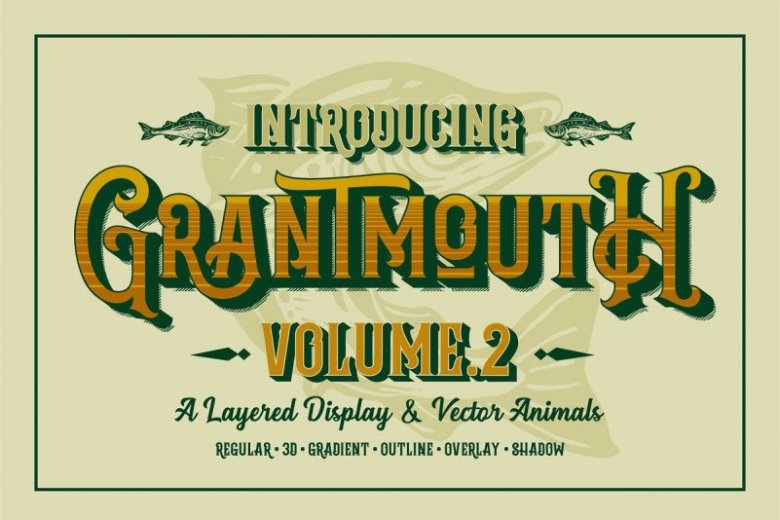
Grantmouth Typeface
This is a display and vintage font. It is most suited as a decorative display font for editorials or packaging design. Introducing Grantmouth Font. The second edition of Grantmouth Typeface comes with various layers to get the effect of each form that is produced from edits. Grantmouth Vol.2 comes with the flexibility of each letter without overriding the original form of Grantmouth and also has extra animal vectors that can be applied to various designs to support your project.
This typeface will be a great armour for your loud poster, social media content, album artwork, 90’s vibes design, solid branding, and more.